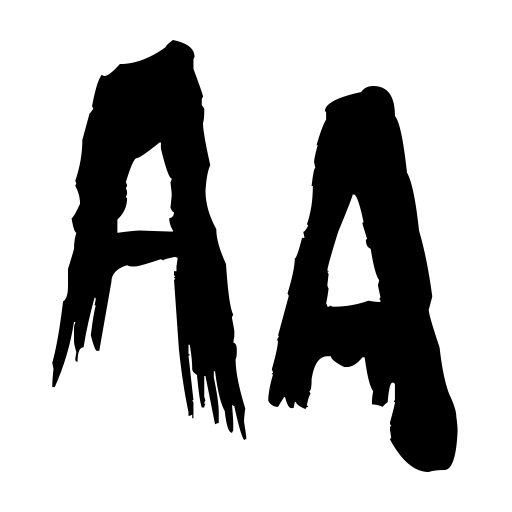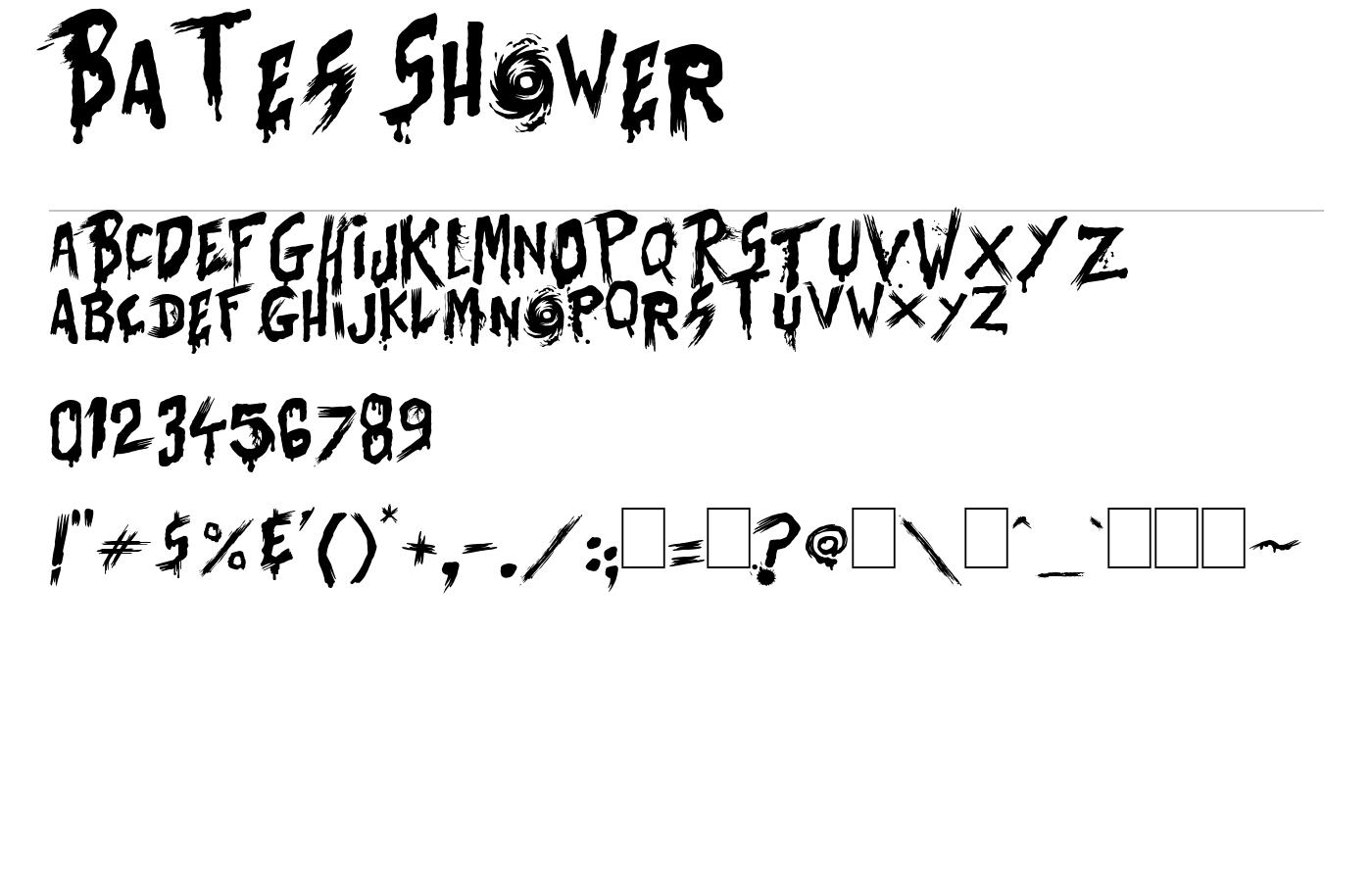
Bates Shower is a bold, distressed display font with an unsettling, horror-inspired style. Its irregular, dripping letterforms and sharp, jagged edges create a chaotic yet eye-catching effect, making it perfect for Halloween themes, horror movie posters, or edgy branding that seeks to evoke a sense of fear or suspense. This font works best in headlines or decorative uses where a striking, dramatic impact is needed.
Bates Shower Font
About Bates Shower Font
| Font family | Bates Shower Font |
| Designer | Imagex |